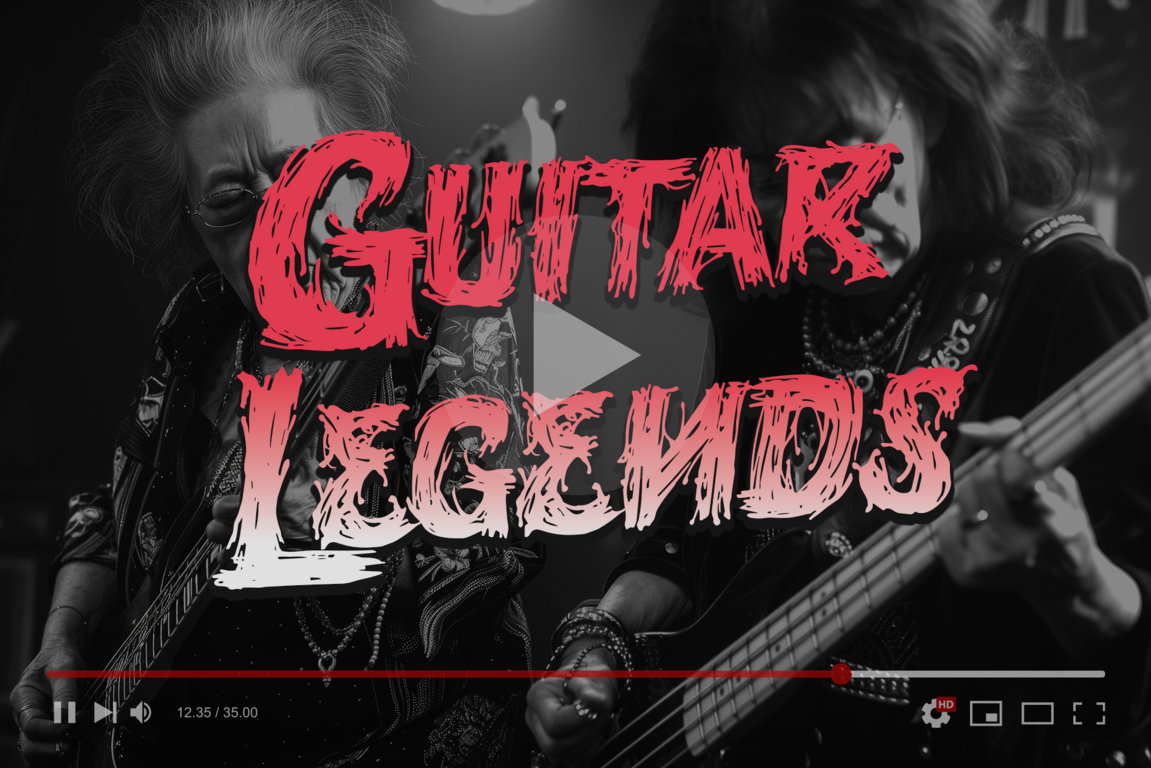
Simbiot
Introducing Simbiot, a bold brush script font that pulses with raw energy and untamed style. Crafted to capture the essence of powerful strokes and thick textures, Simbiot brings a vibrant, daring edge to your designs. Whether you’re creating logos, posters, packaging, or any project that demands attention, this font delivers a striking impact with every letter. Its fluid motion and dynamic glyphs breathe life into your work, making each piece resonate with intensity and flair. With PUA encoding for effortless access to its unique features, Simbiot is your go-to choice for adding bold character and unstoppable energy to your creative projects.